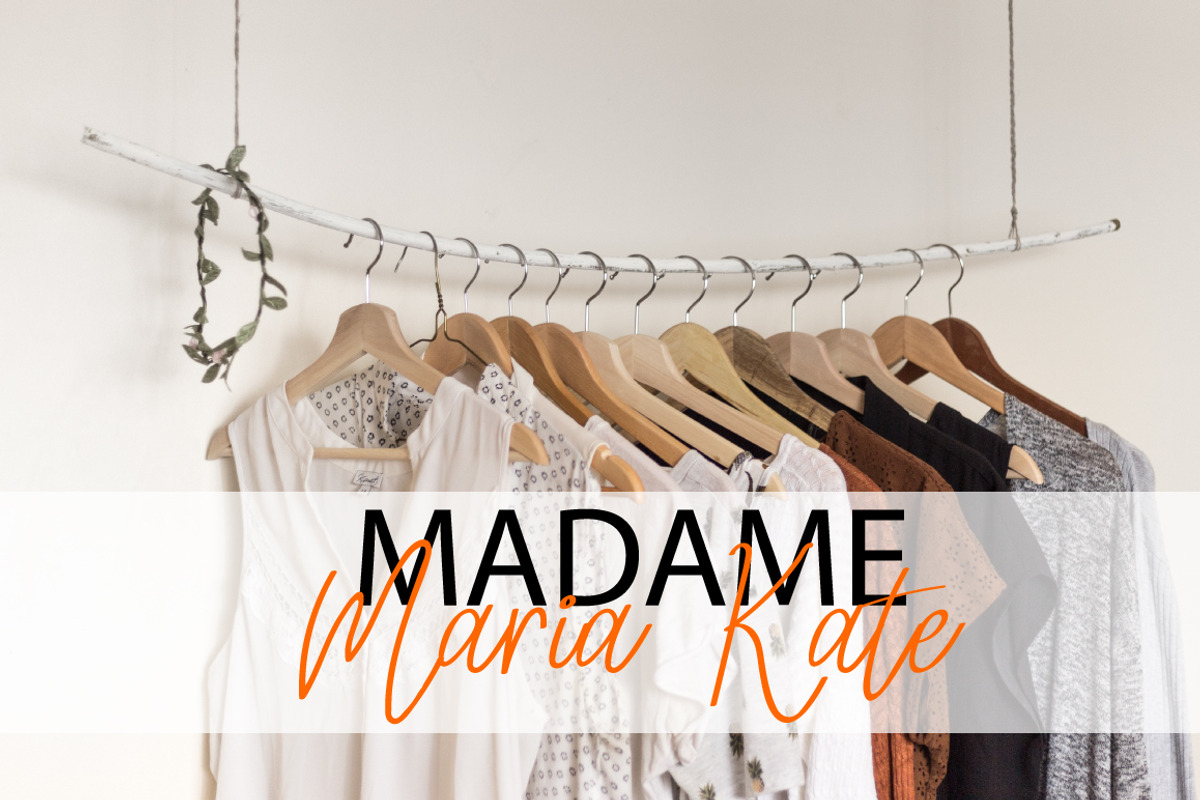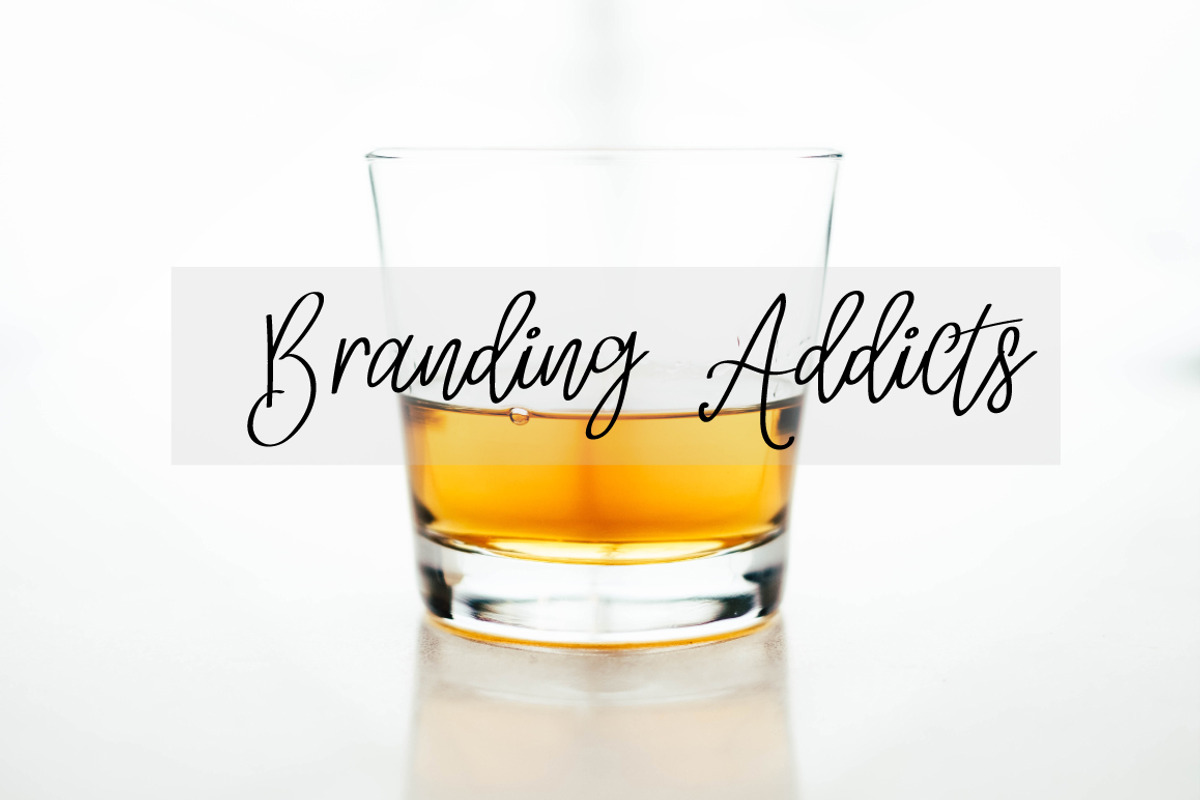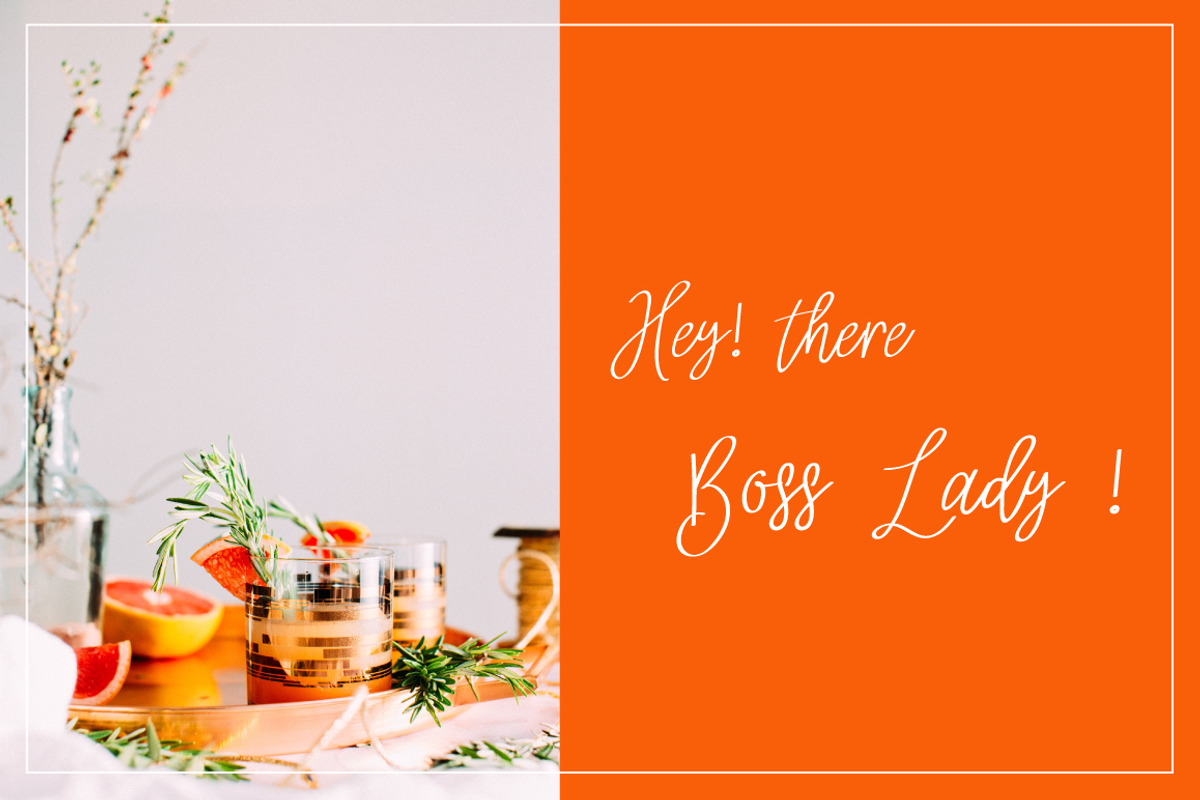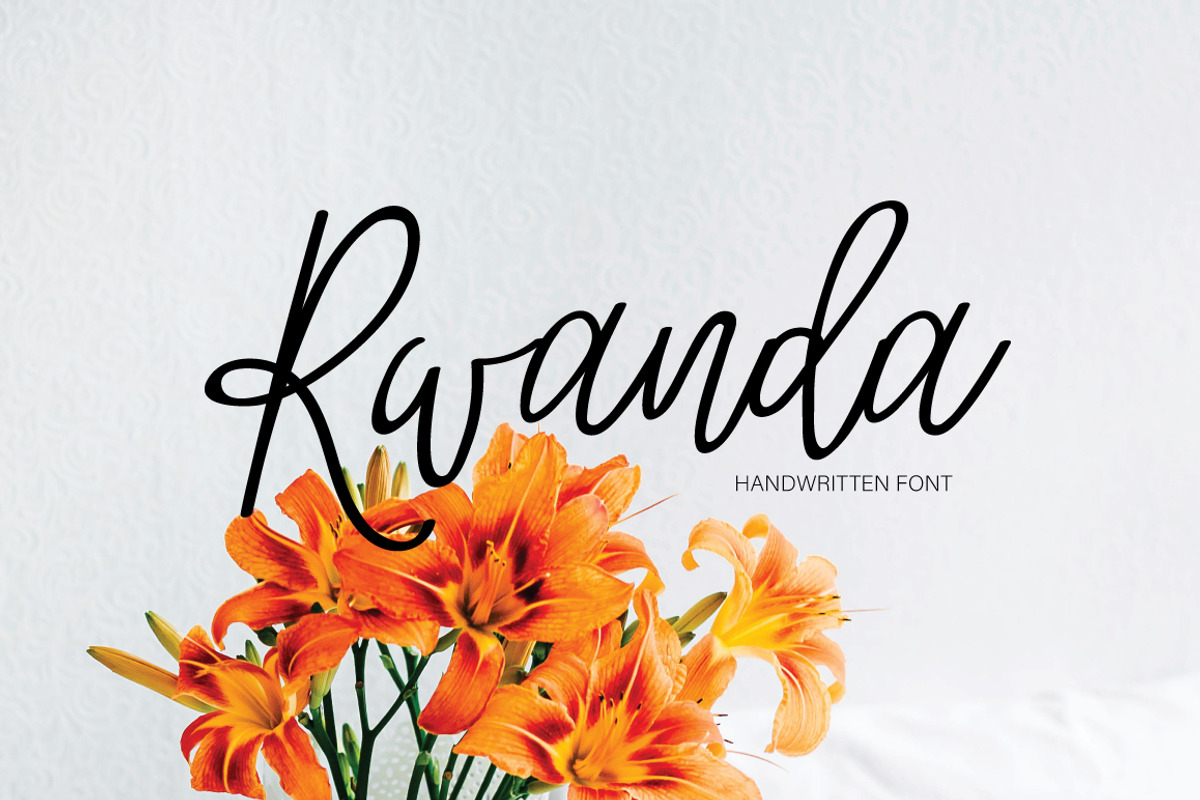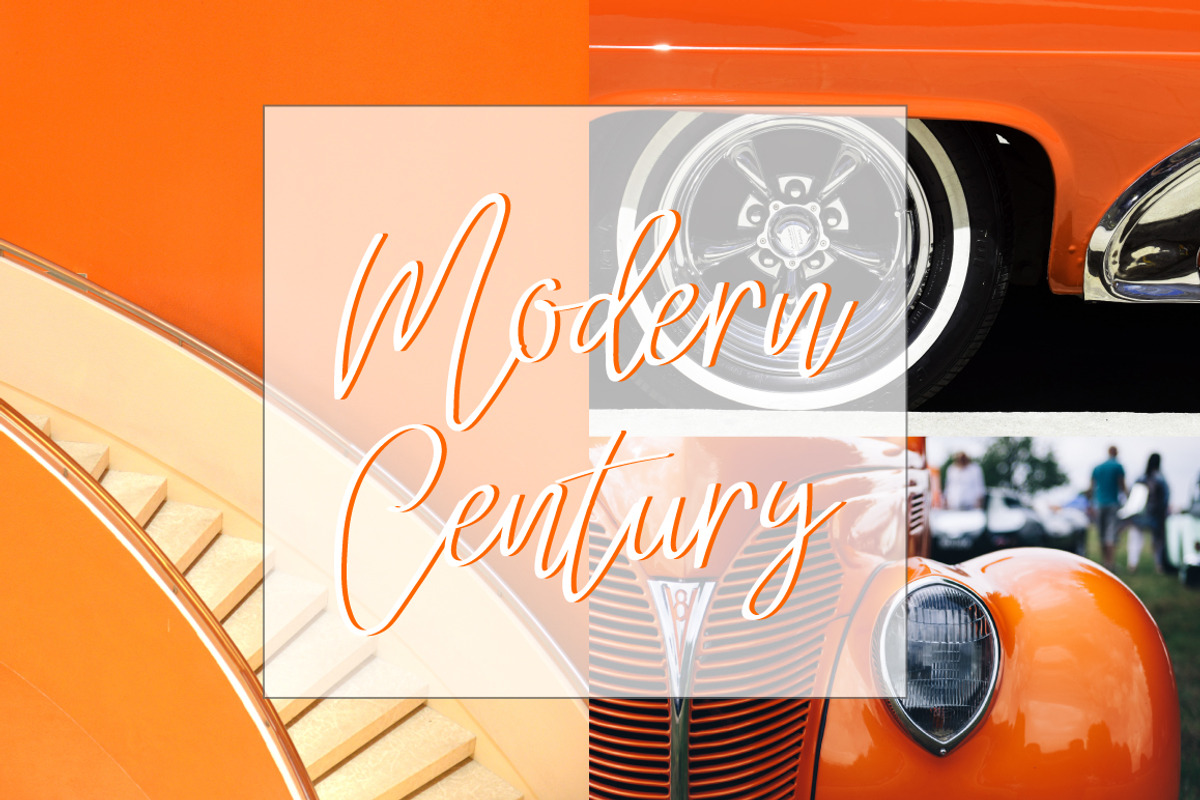
Rwanda | Handwritten Script Font
it's handwritten script font.
This font a perfect for every project, wedding invitation or your blog. Also with their help, you can create a logo or beautiful frame for your home. Or just use for your small business, book covers, stationery and more.